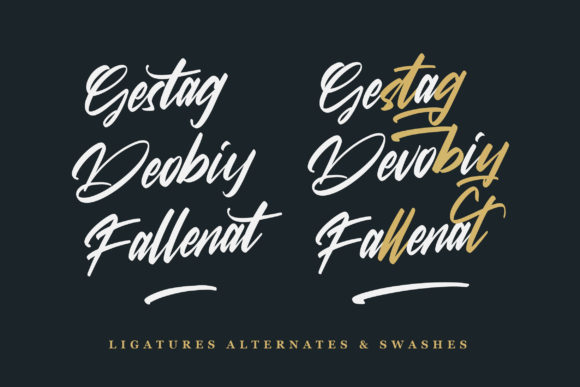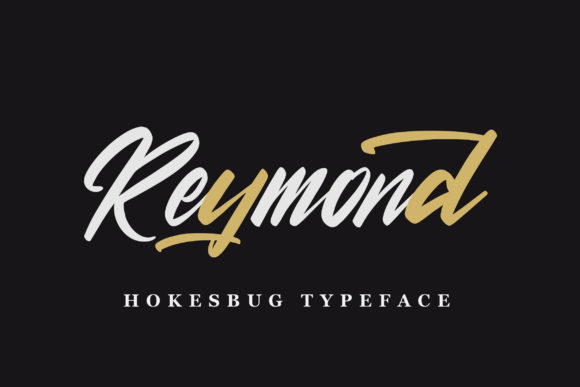
Hokesbug Font
db-ku.com - Script & Handwritten -- Hokesbug is a versatile script typeface includes many different alternates for each lowercase letter. It’s extremely fun to use as each word can be transformed to your liking.